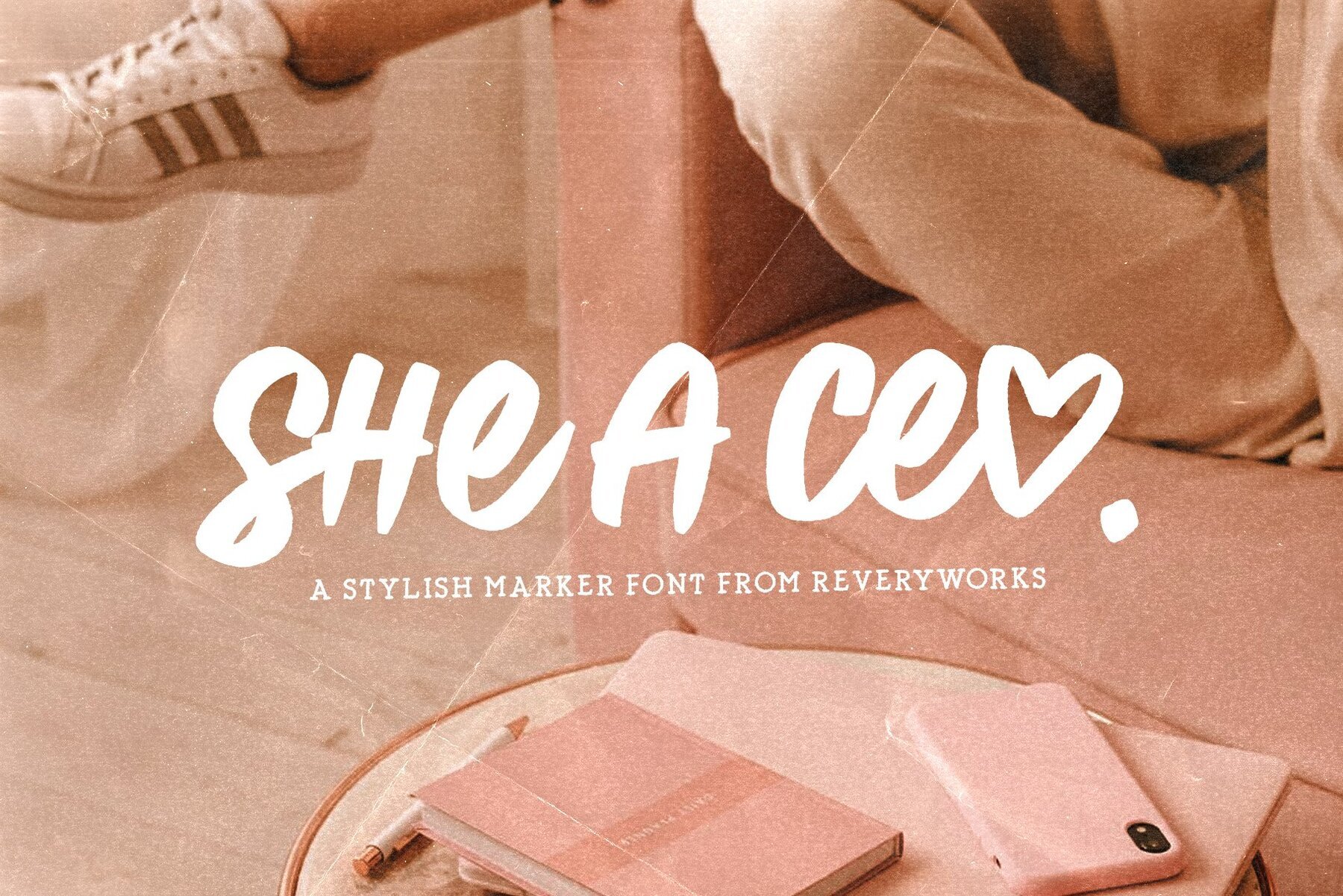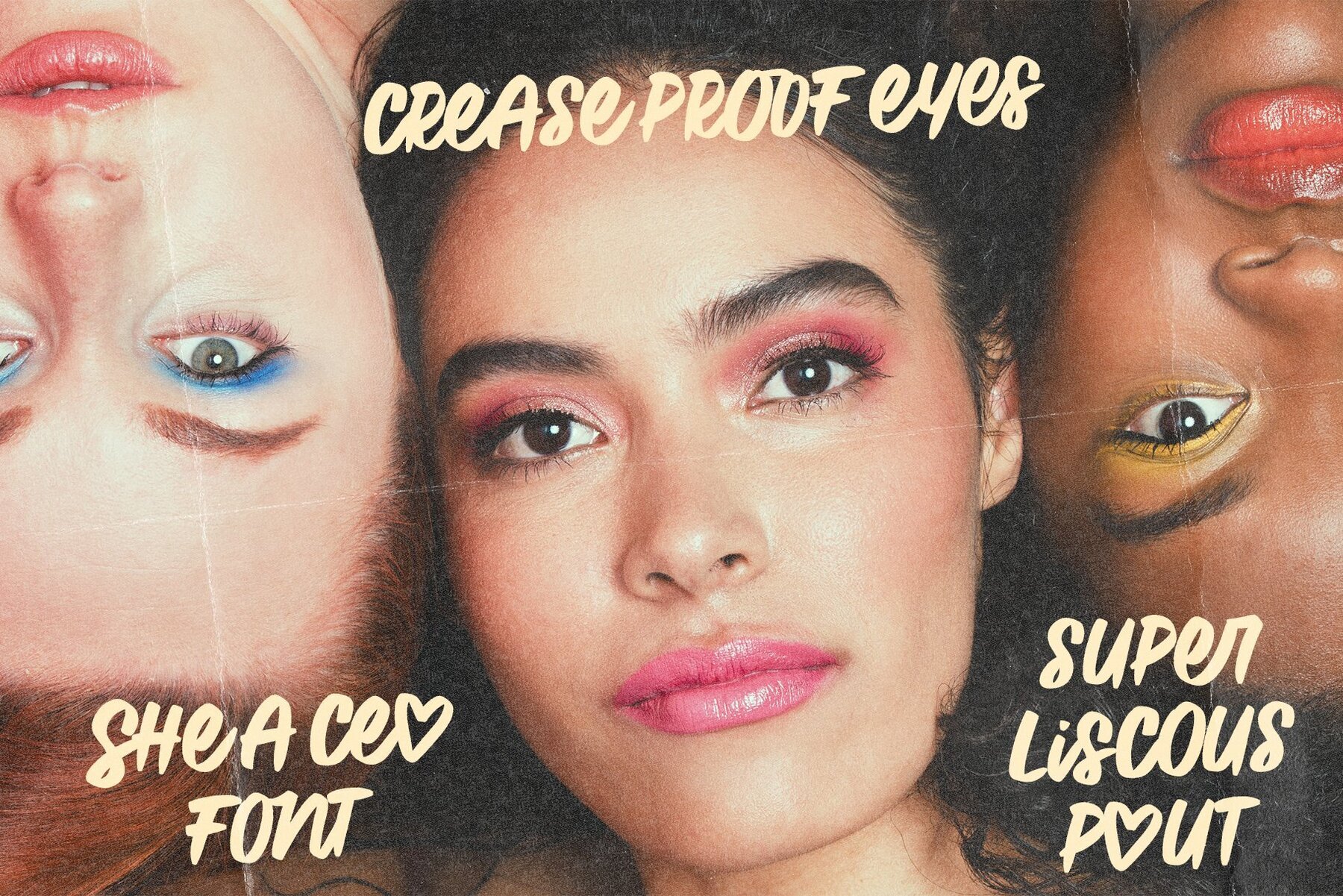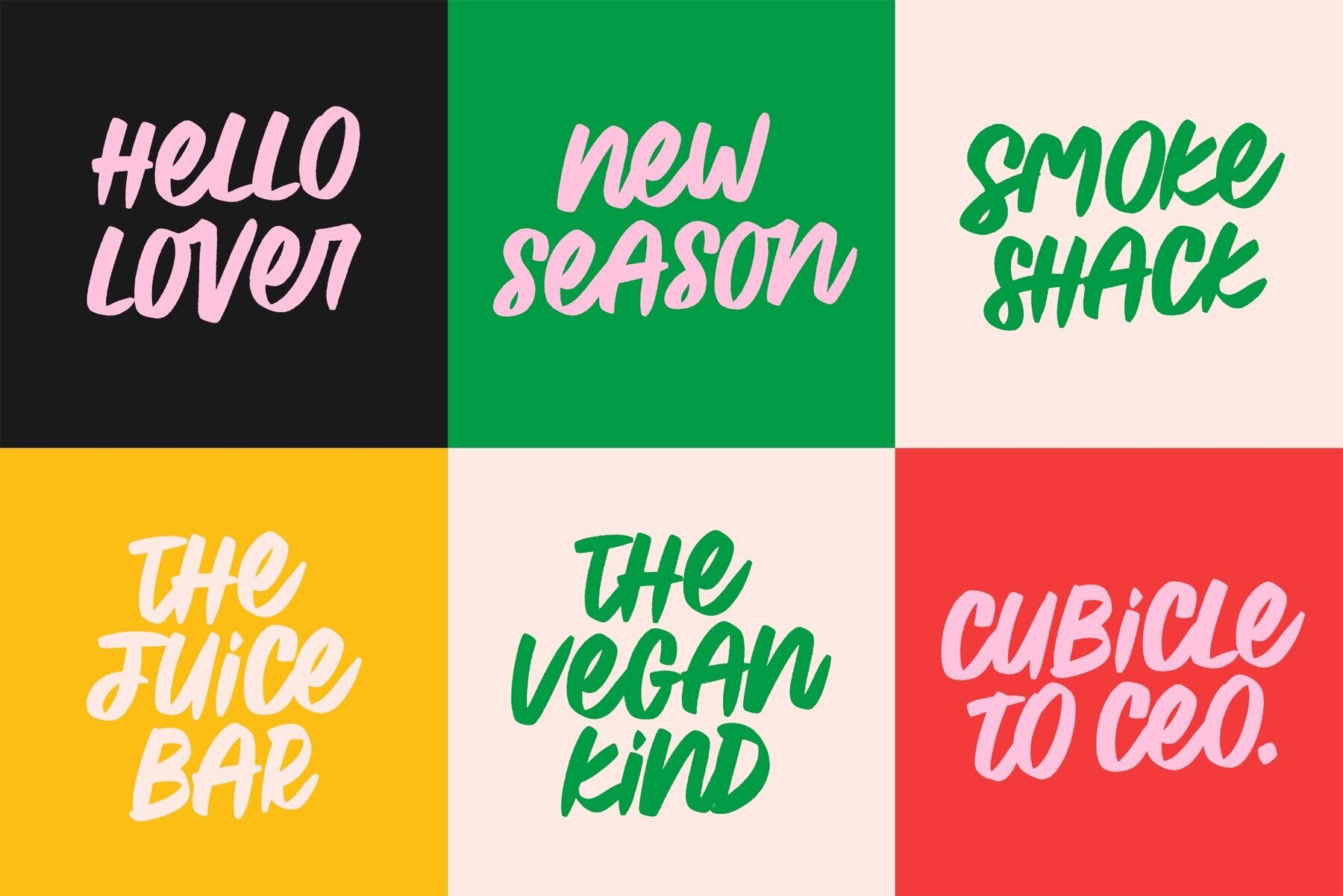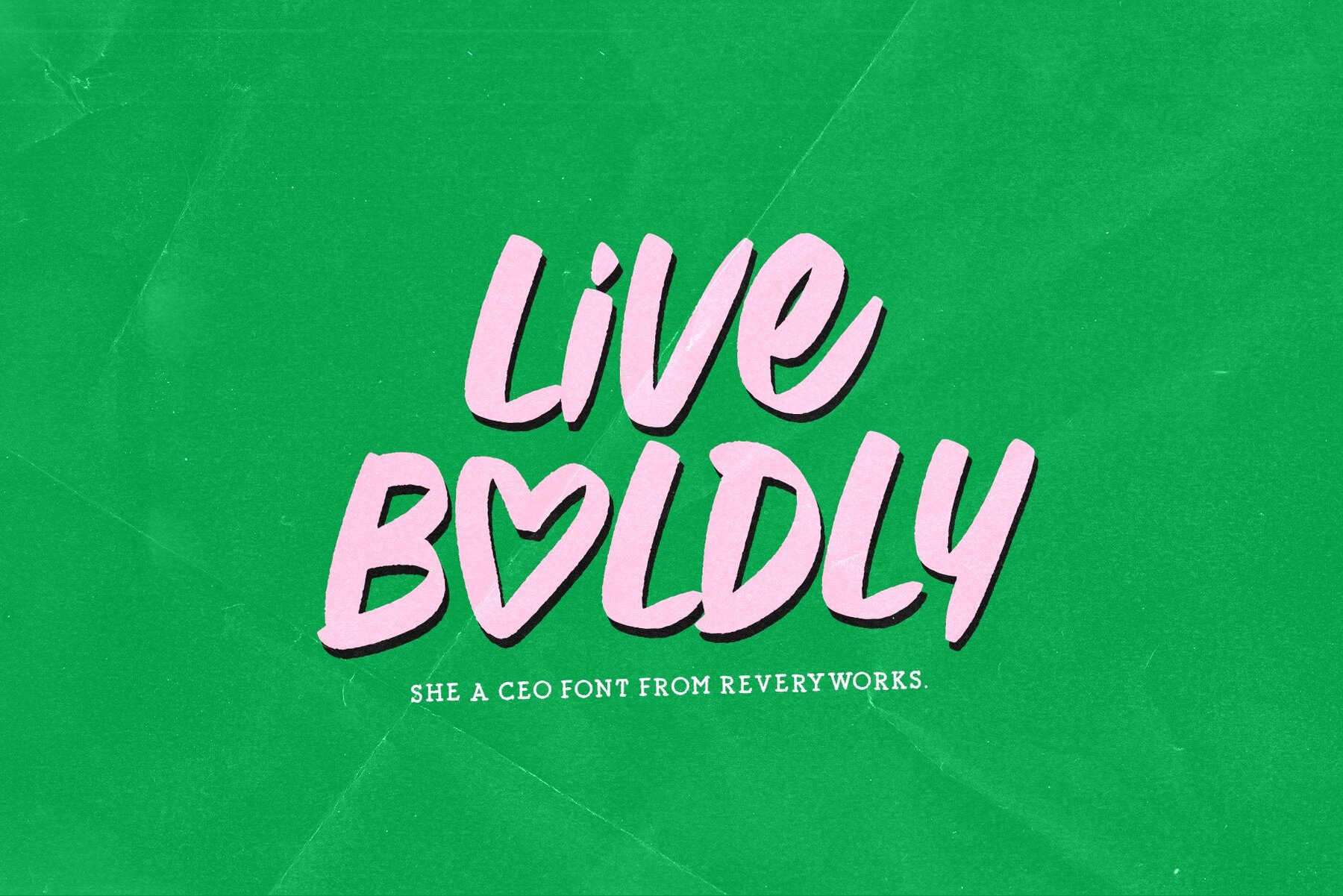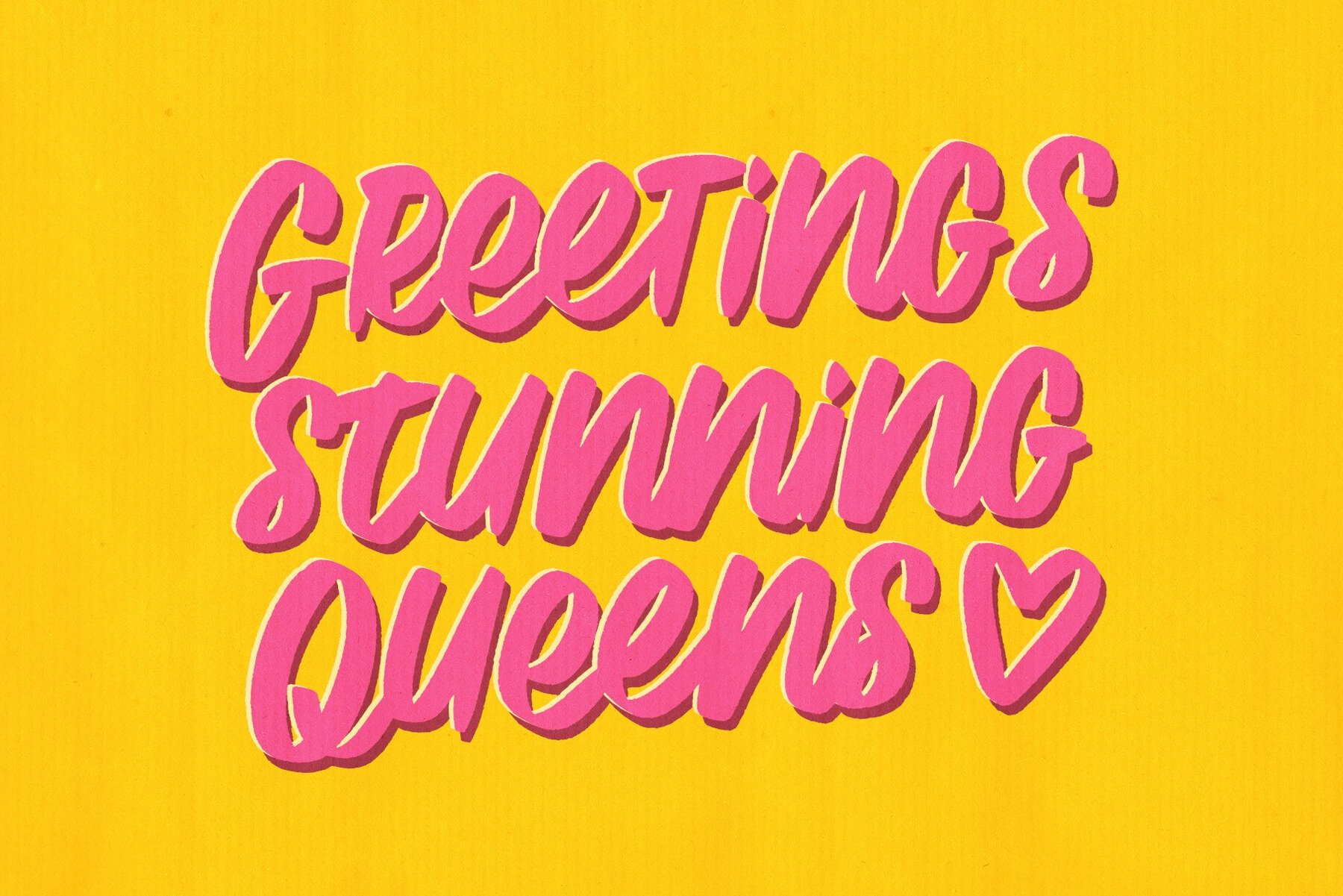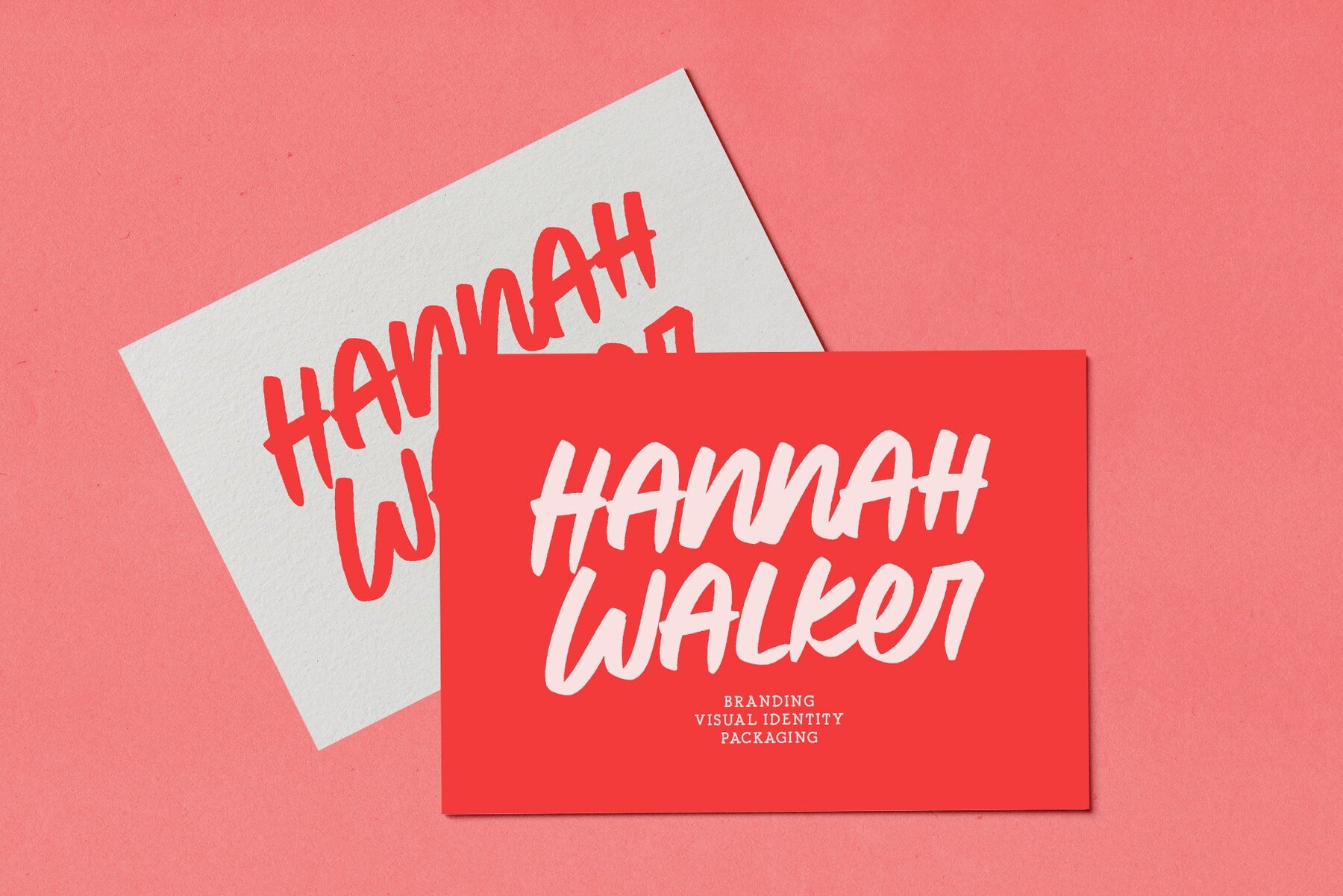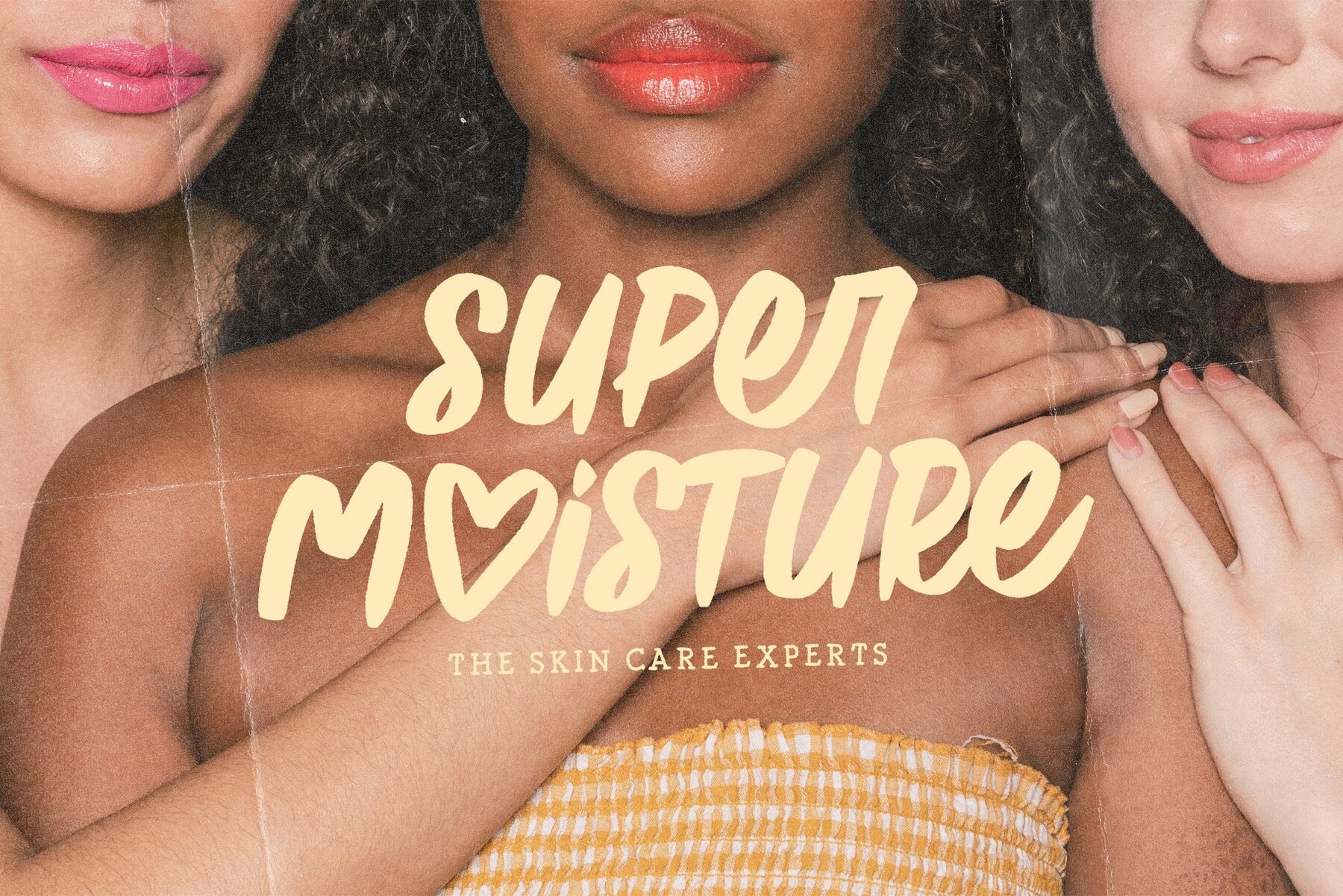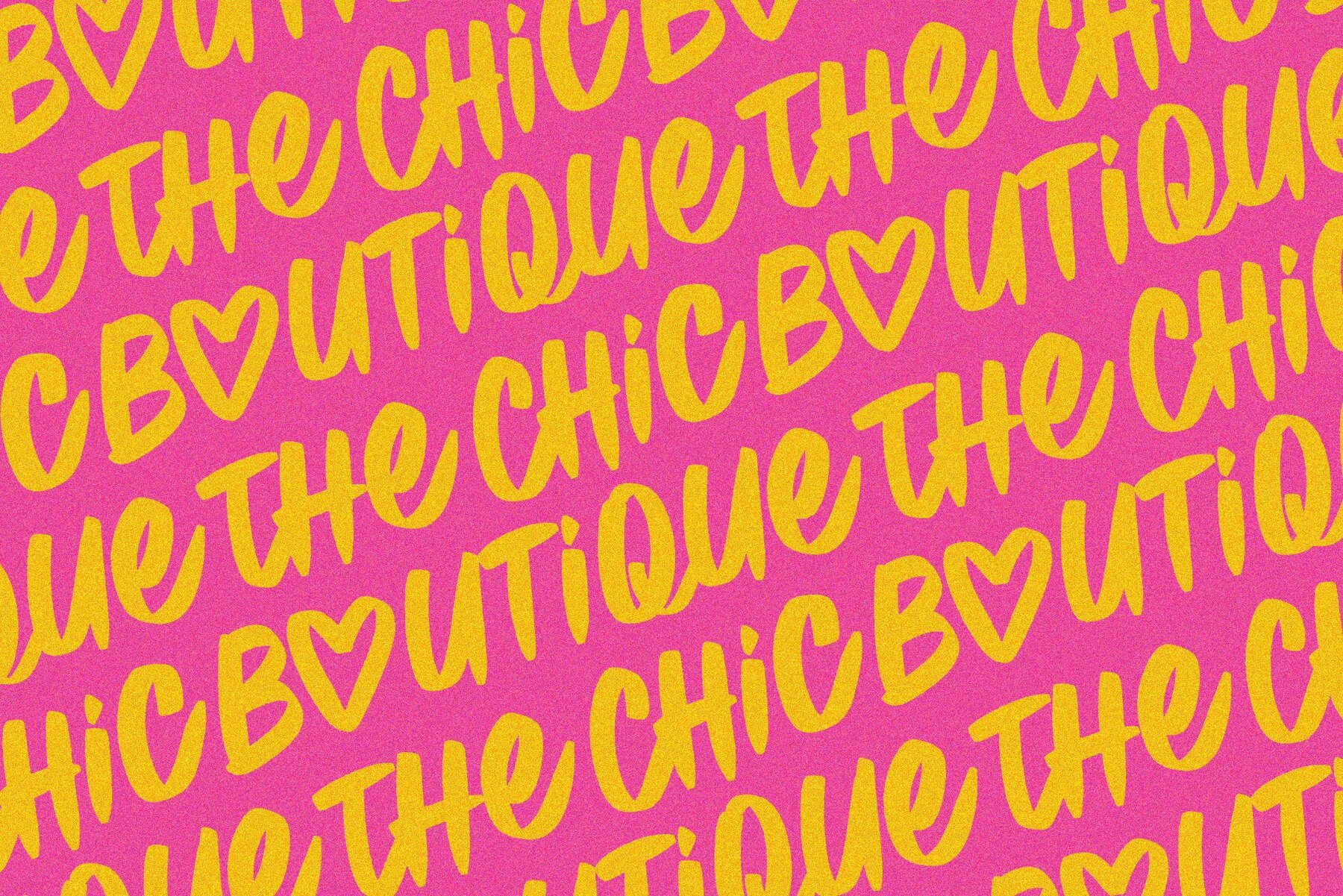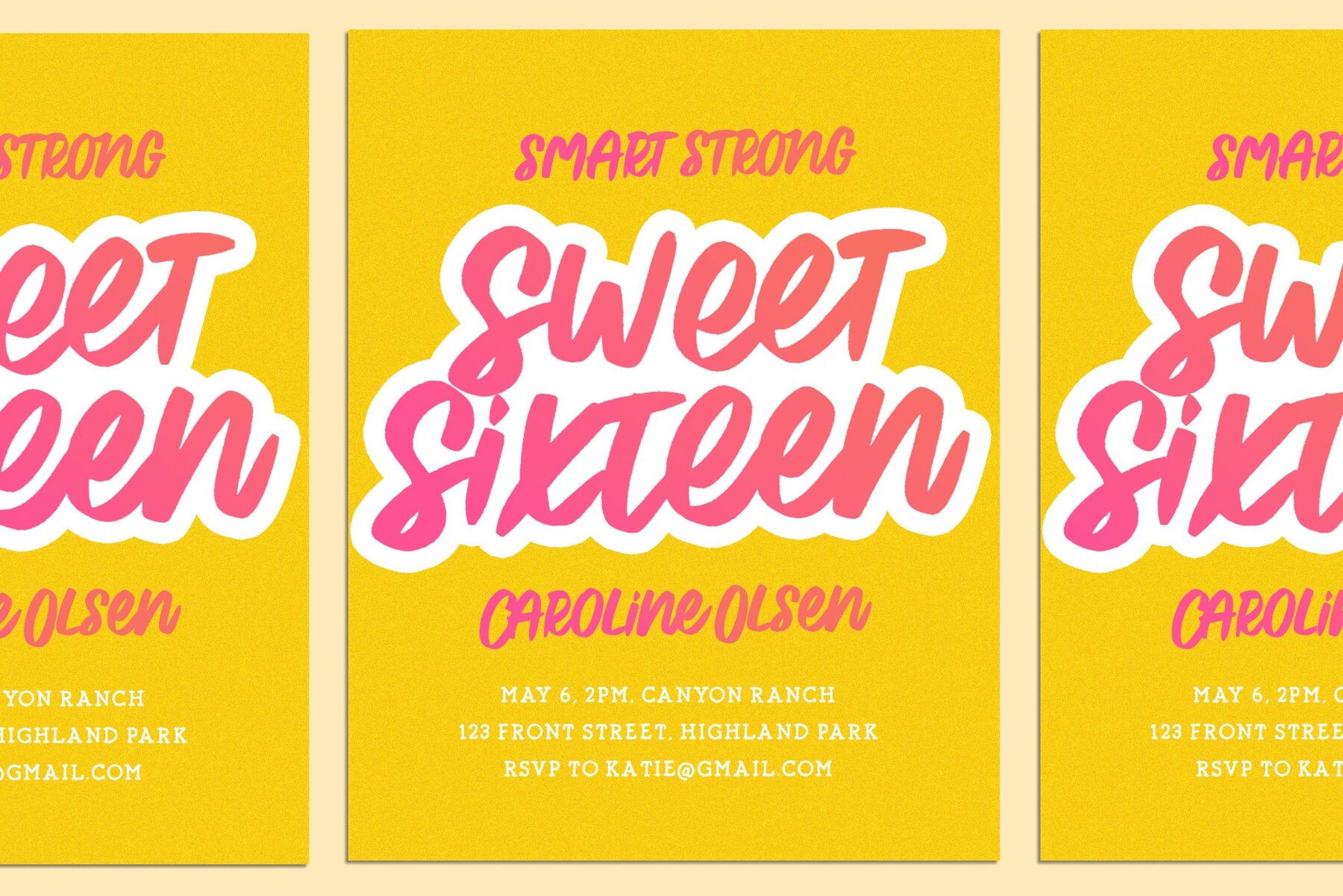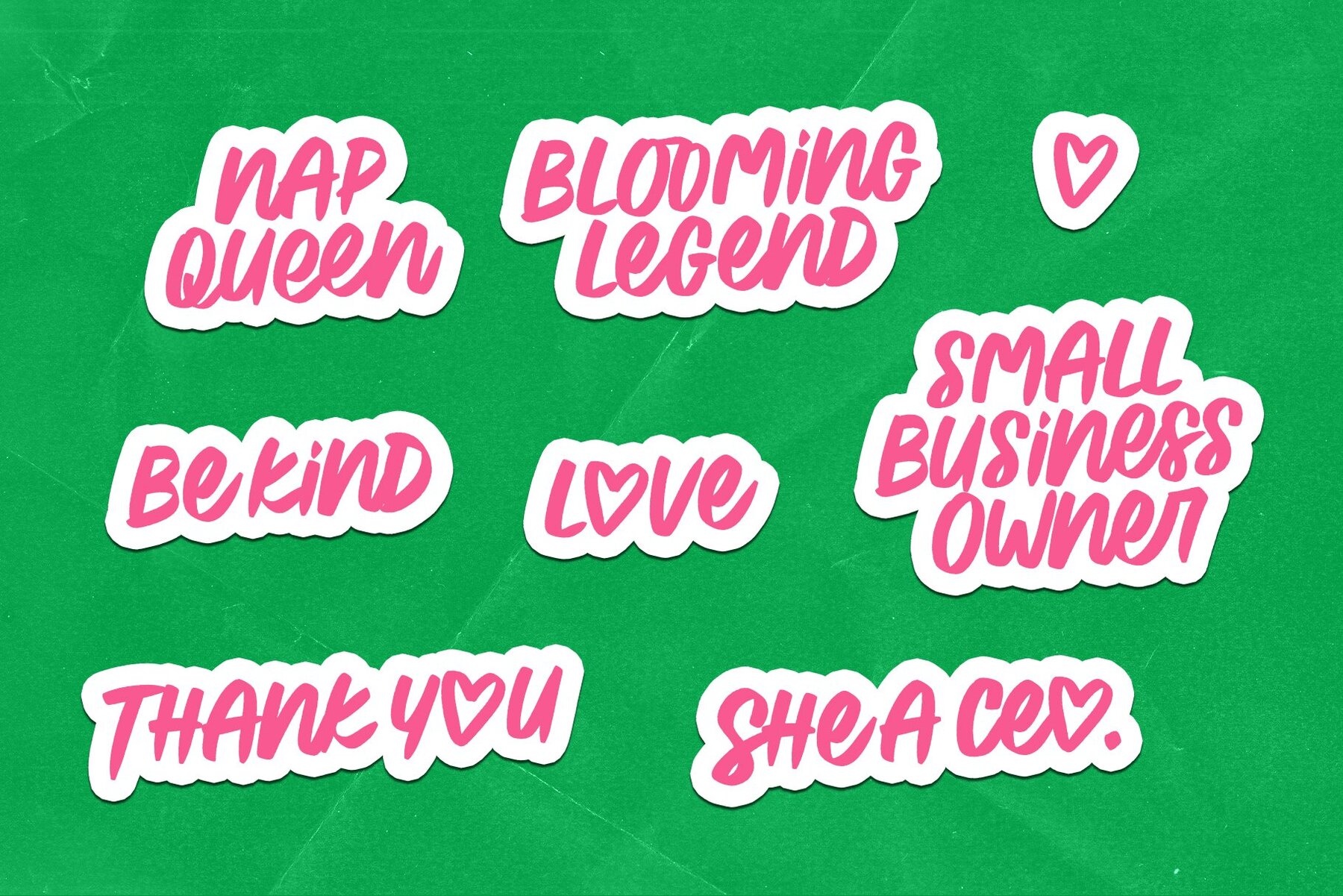
She a CEO Font
Need to make a statement? She a CEO by Maryam Kamal is a bold, dynamic marker font designed to capture attention. Perfectly suited for small business owners who want to stand out, this font offers a fearless and catchy look, available in both standard and lighter versions. This font includes an extensive set of multilingual characters, allowing for versatile use across different languages and regions.She a CEO: Bold Marker Font for Entrepreneurs